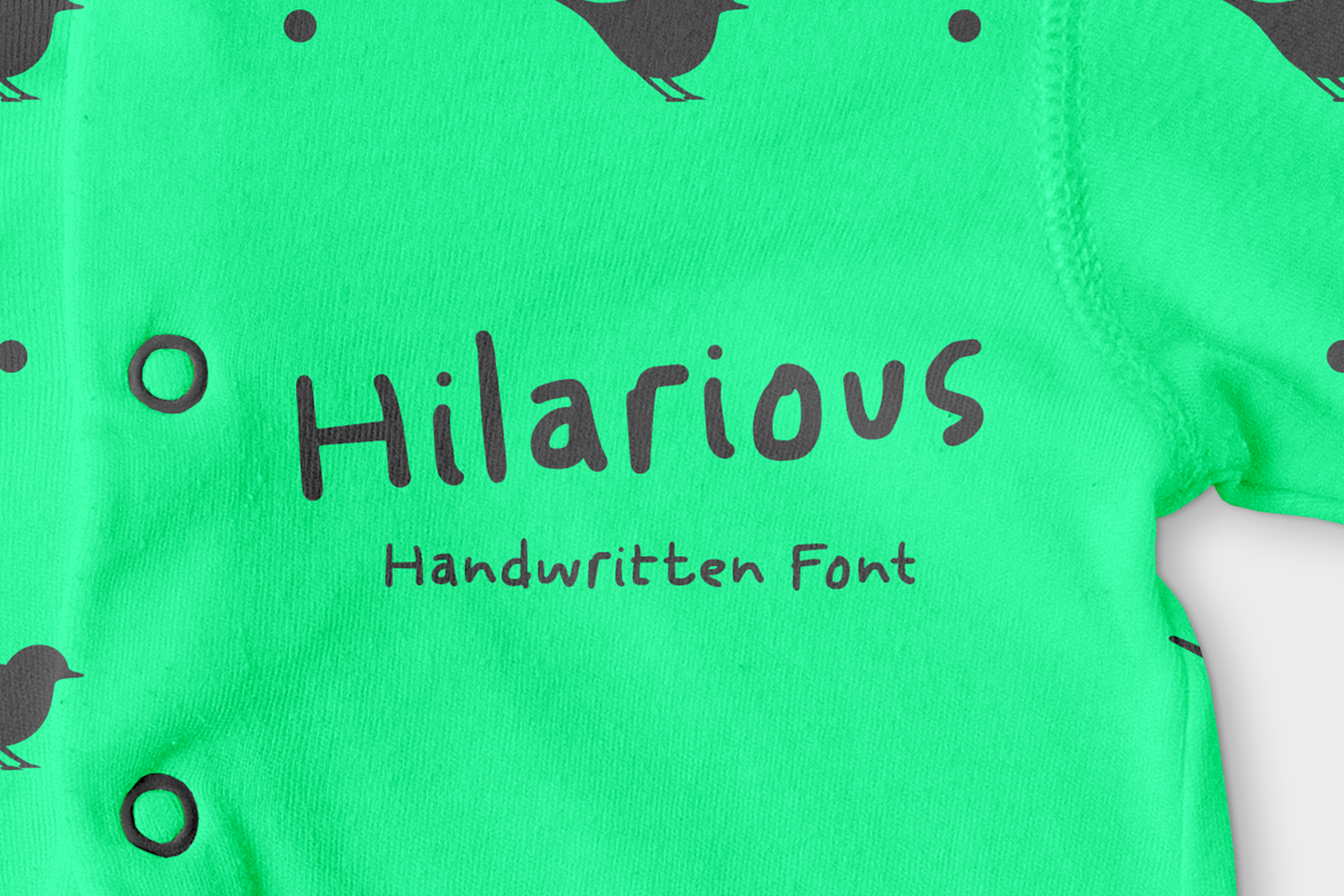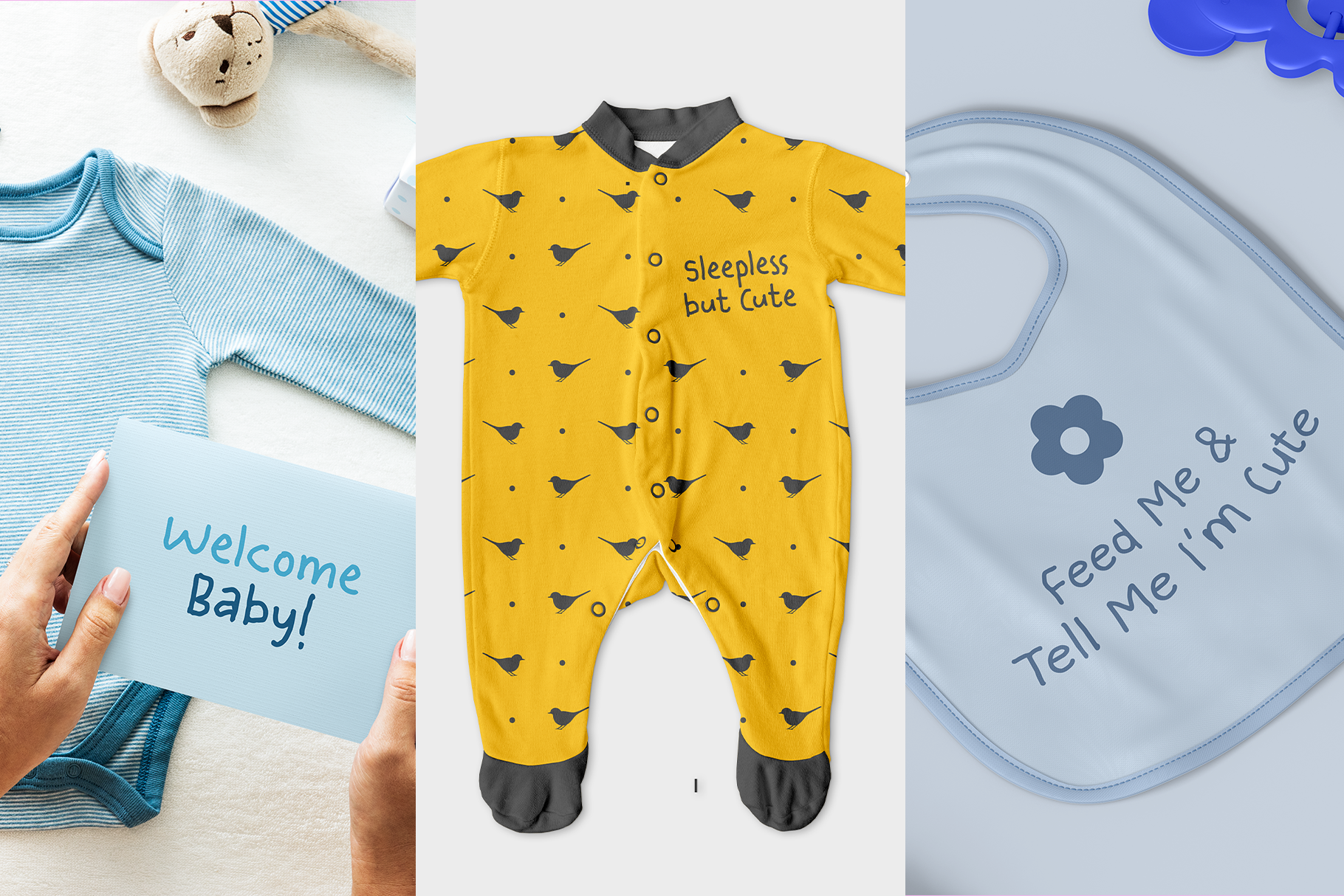
Creating Memorable Baby Shower Gifts with Childlike Handwriting Fonts
Giving baby shower presents lets you express your heartfelt sentiment to the new parents. One way to personalize them is to use texts in childlike handwriting fonts. The playful, childlike style emphasizes the nature of the present and adds emotional weight.
Depending on the gifts, you can use the texts on the cards or slap them right on the presents. Let’s explore some ideas to help you determine the best baby shower gift.
Adorable Baby Shower Gift Ideas
The “safest” options for baby shower gifts are the traditional, practical items parents may need. Strollers, carriers, baby bouncers, and diaper bags will greatly help new parents. You can also opt for personal care such as a towel set, baby toiletries, and a soft bib set.
Consider giving the parents tech-equipped gifts that will be useful for their daily activities. They may include a bottle warmer, a bottle washer, a sterilizer, and an electric baby bouncer. Consult with the parents first or check their gift registry to avoid double gifting!
You can also choose more unique (but still practical) gifts. “Diaper cake”, a pile of diapers with a stylish arrangement, is a modern baby shower gift trend. You can alternate with a fabric diaper for a more environmentally-friendly option, but ensure the parents have the same diaper options.
How to Incorporate Childlike Fonts into Your Gifts
The easiest way to utilize childlike handwriting fonts is on a separate card. Baby-related products often have sentimental value for the parents, and separate personalized texts give them more flexibility.
Electronic devices like a bottle washer, a bottle warmer, or an automatic bouncer tend to be inherited. If you want to add texts directly to the presents, use them on things that are more personal for the babies, like towels, bibs, storage boxes, socks, and dolls.
What texts should you add? Depending on your relationship level with the parents, you can choose the most standard phrases for familiar greetings (simply adding the baby’s first name would be sufficient, too). You can also insert meaningful phrases from baby-related quotes or poems.
Which Childlike Handwriting Fonts Should You Use?
Childlike handwriting fonts are great for baby shower gifts, but remember that parents are the ones who read the texts. Make sure they are playful, cute, giving positive vibes, but still readable.
Here are our recommendations.
Chirpy
Chirpy is a handwriting font with slight irregularities that gives a playful vibe. The squiggly form adds a whimsical touch to baby shower gifts. Chirpy’s design is based on learning materials for kindergarten students, making it perfect for baby and toddler-related designs.
The freeform look and the playful vibe give Chirpy an approachable look. However, it is still readable enough for adults. You can apply the font directly to the present or the greeting card.
Charmed
Charmed is a childlike handwriting font with playful, freeform strokes. The little squiggly details and irregularities add to its childish charm—a perfect font to create a funny, personal, or heartfelt message for baby shower gifts.
Charmed is a delightful font to add to greeting cards, baby bibs, towels, and stuffed toys. You can also use it for projects such as framed poems or cute quotes for wall decorations.
Hilarious
Hilarious may have a childish charm, but it also has a subtle effortlessness. The strokes are less squiggly than the two previous examples, but still with charming irregularities. The result is a playful font with good readability and natural playfulness.
Use Hilarious to emblazon a baby blanket, soft toys, towels, bibs, or socks. With this font, you can also print funny words on a baby onesie, cap, or jacket.
Customizing baby shower gifts allows you to create positive memories for the recipients, especially your closest ones. Use childlike handwriting fonts to add customized texts and make the presents more memorable.